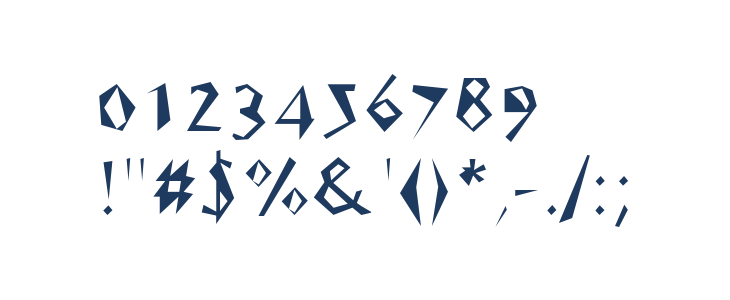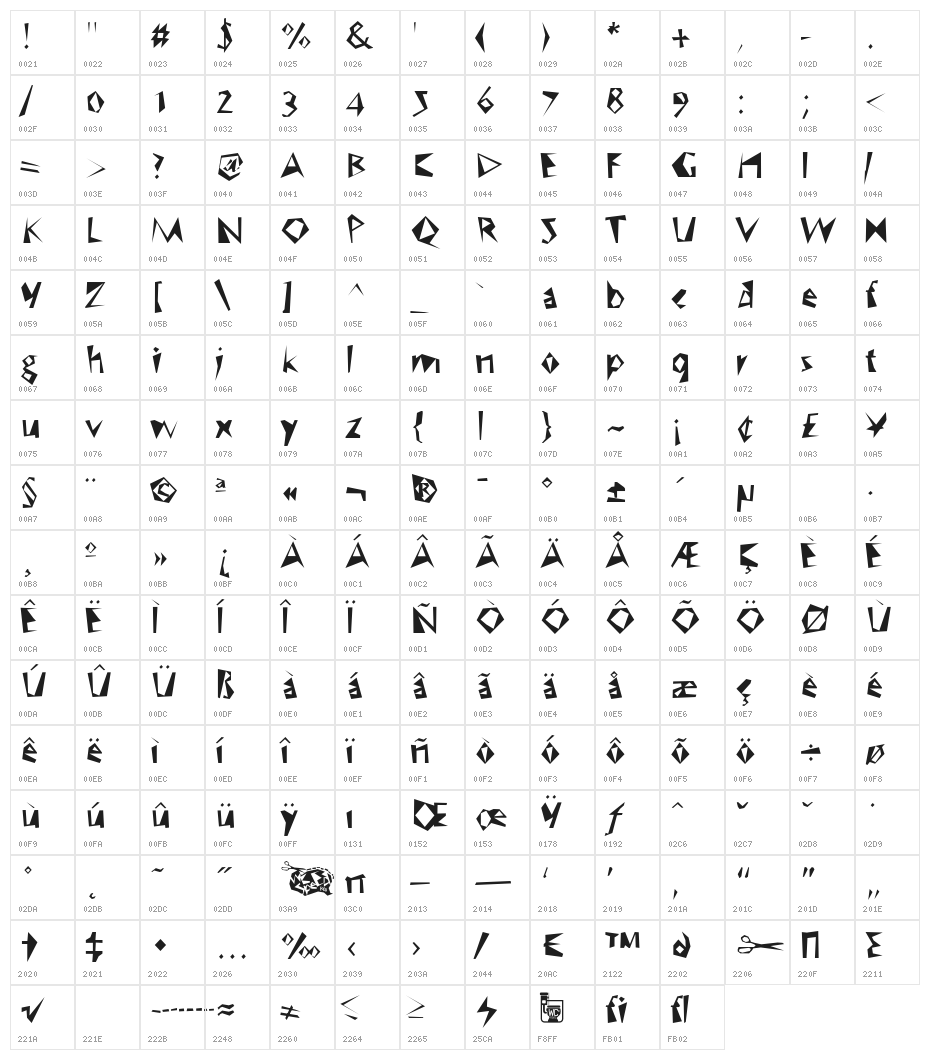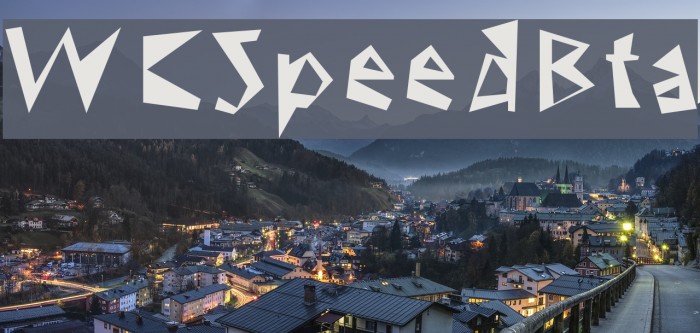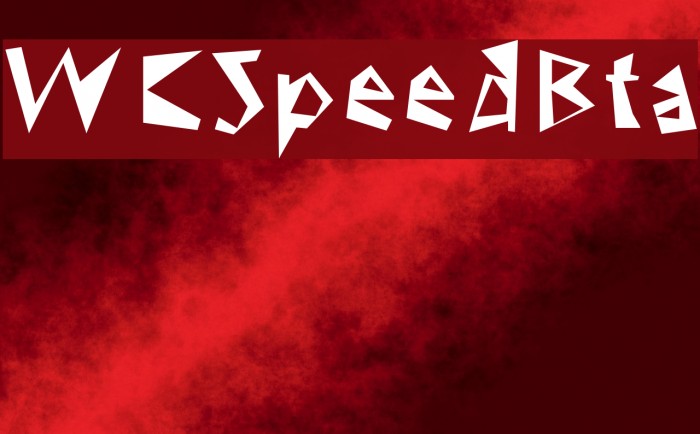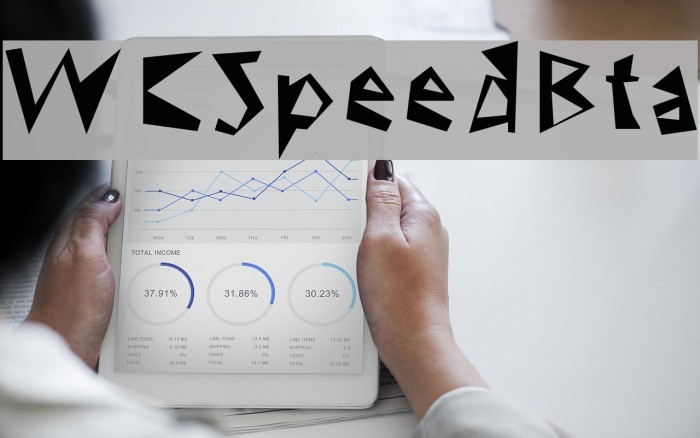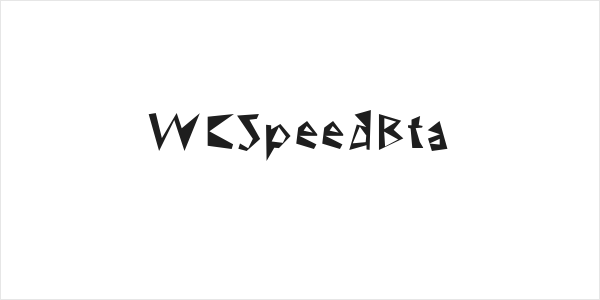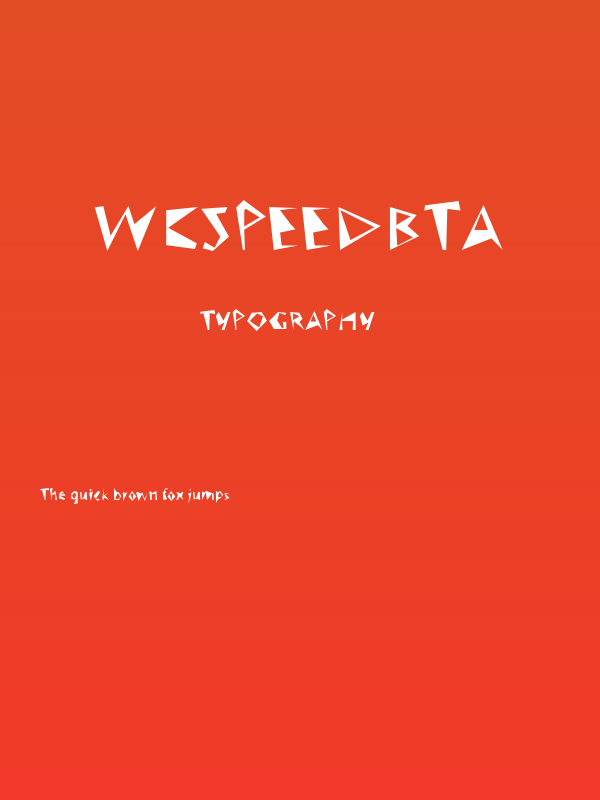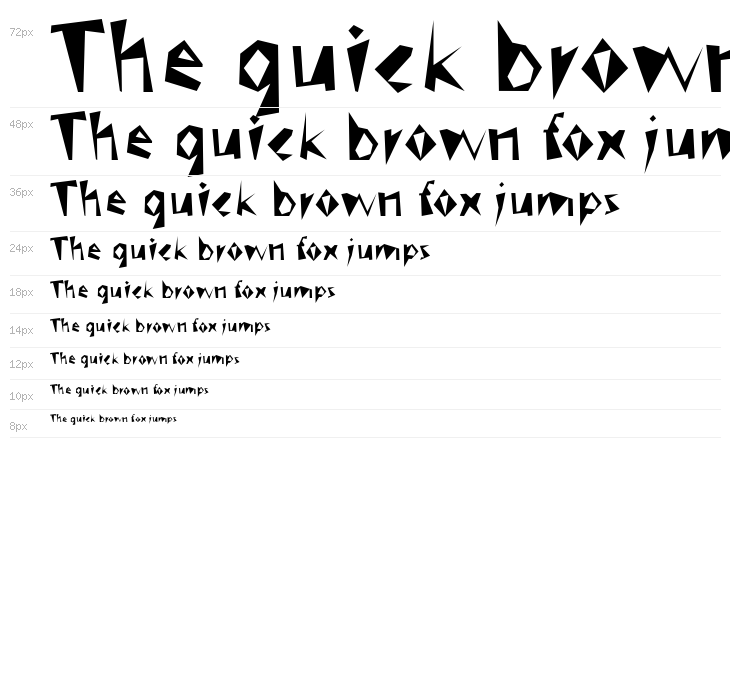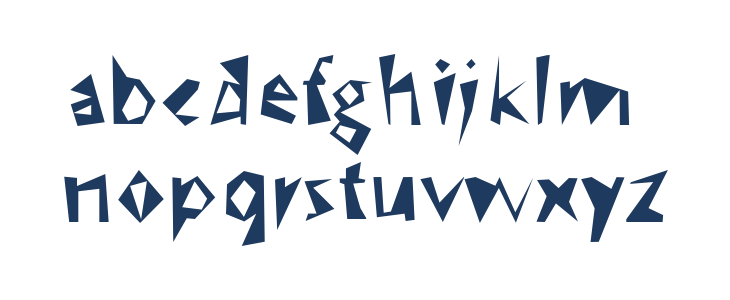
WCSpeedBta Font
WCSpeedBta Description
This font features a bold and dynamic design with sharp, angular edges and a distinct geometric style. Each character is crafted with a sense of motion and energy, making it stand out with its unique, jagged appearance. The uppercase and lowercase letters maintain a consistent theme of sharpness and asymmetry, while the numbers and special characters follow suit with their edgy, modern look. The font's overall aesthetic is striking and unconventional, perfect for projects that require a bold statement.
| Proposed Projects | Ideal for music album covers, edgy branding, posters, and modern art projects. |